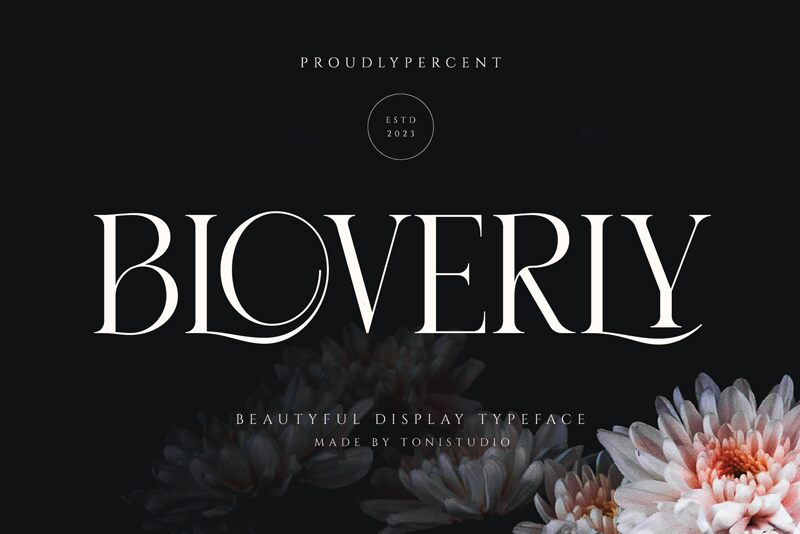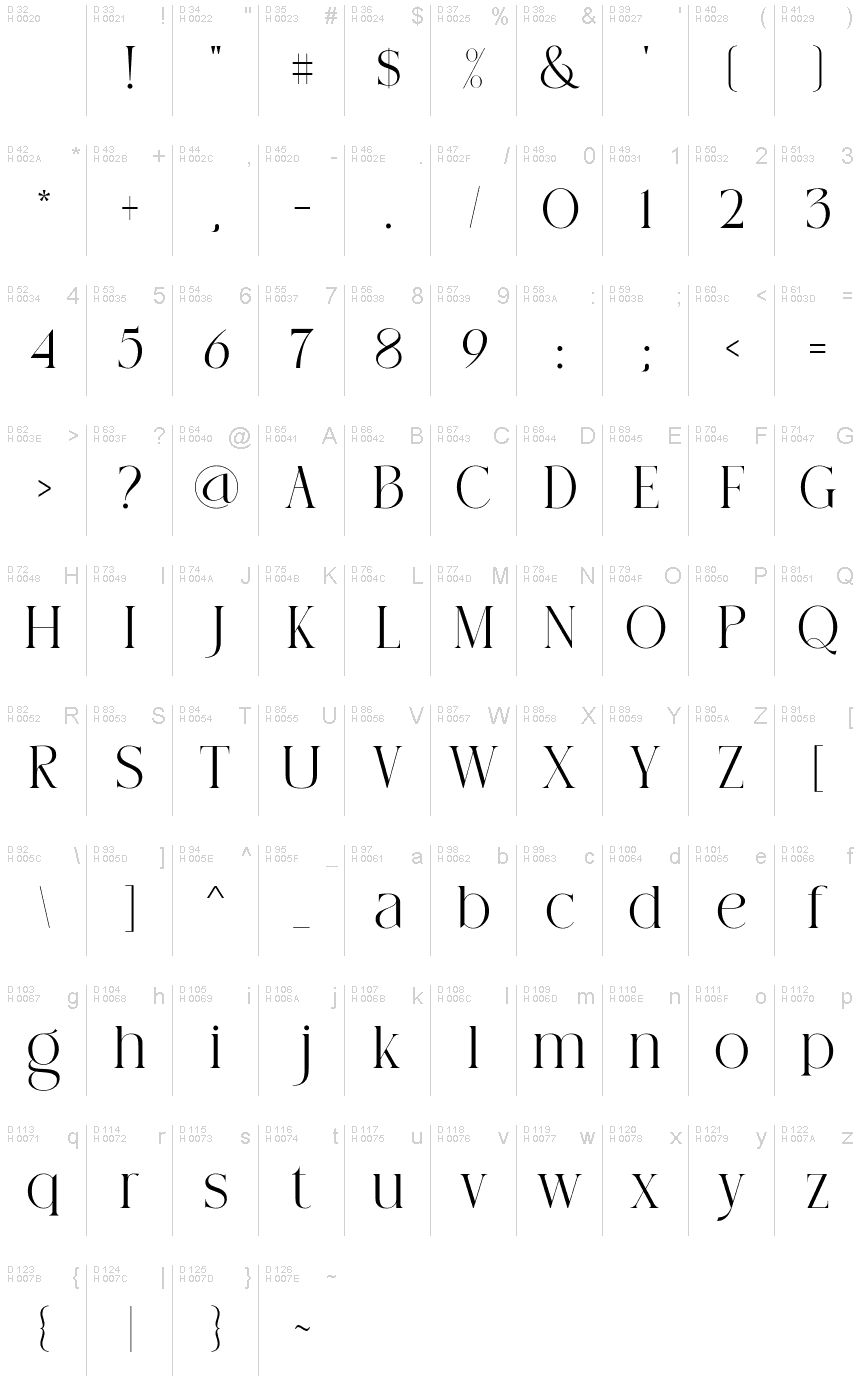
BLOVERLY
BLOVERLY is a sophisticated serif font designed by ToniStudio. Its semi-light weight and semi-condensed width make it perfect for elegant and refined projects such as high-end fashion magazines, luxury branding, or wedding invitations. Its sleek lines and classic serifs add a touch of sophistication to any design, while its legibility ensures that your message is always clearly communicated. Whether you're looking to create a timeless logo or eye-catching headlines, BLOVERLY's unique blend of elegance and readability will help your project stand out from the crowd.